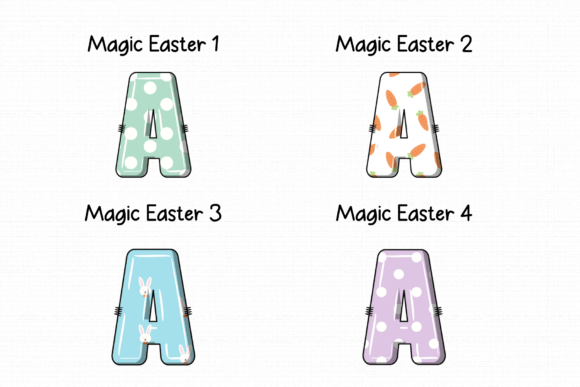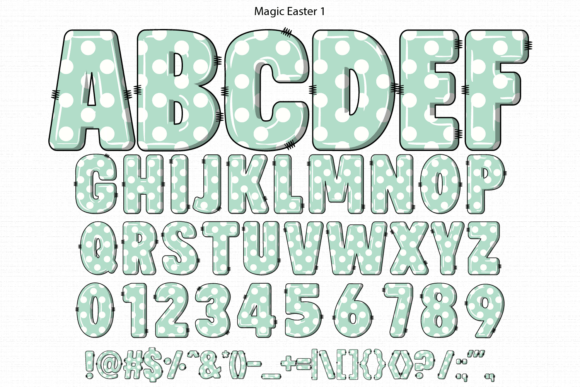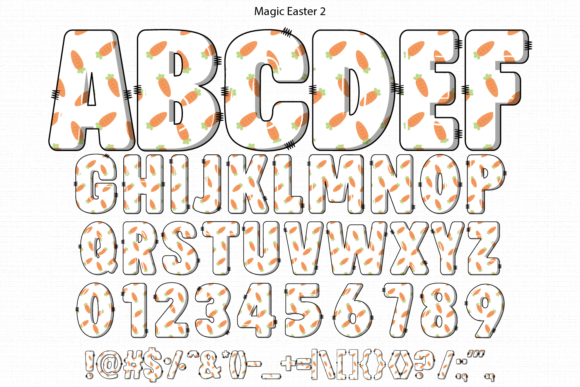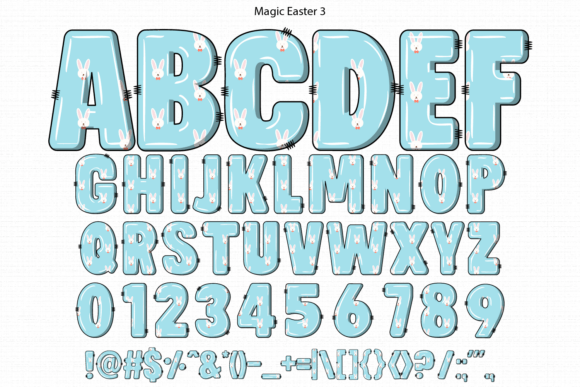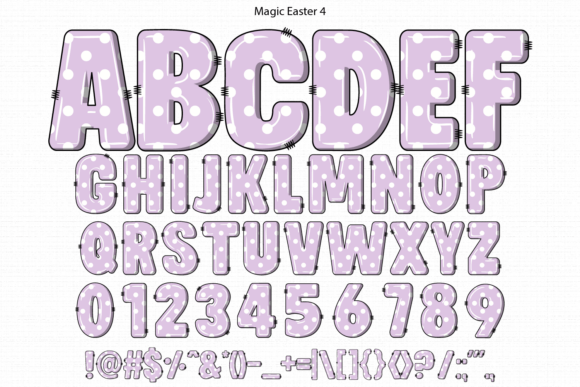
Introduction to Magic Easter Font
Do you remember that moment when you stumbled upon the perfect design element for a creative project? It’s like a spark of inspiration that sets your imagination ablaze. For designers, finding the right font can be a game-changer. That’s why we’re excited to introduce the Magic Easter Font, a vibrant and high-quality design resource that’s sure to bring a touch of whimsy to your next project.
With its transparent background and effortless style, the Magic Easter Font is the perfect addition to any design assemblage. Whether you’re crafting a blog post, logo, or advertisement, this font is sure to deliver standout results. And with its compatibility with popular design programs like PhotoShop, Illustrator, and Silhouette, you can unleash your creativity without any limitations.
Key Features of Magic Easter Font
- High-quality design resource perfect for creative projects, such as Easter-themed graphics, invitations, and social media posts.
- Transparent background option for easy customization and layering with other design elements.
- Unique, hand-drawn style that adds a touch of whimsy and personality to any creative project.
- Perfect for designers, artists, and crafters looking for a distinctive and eye-catching font to elevate their Easter-themed designs.
Honest Review: Magic Easter Font
I recently stumbled upon the Magic Easter Font, and I must say it’s a delightful addition to any design project. As a designer, I appreciate high-quality fonts that can elevate a creative project.
- Transparency: The Magic Easter Font offers a transparent background, making it easy to customize and blend with any design element.
- Unique Design: The font’s unique design makes it perfect for spring-themed projects, Easter cards, and other seasonal creatives.
- Limited Characters: The font may not be suitable for extensive text-based projects due to its limited character set.
Overall, the Magic Easter Font is a great design resource for those looking to add a touch of whimsy to their creative projects. While it has its limitations, it’s a high-quality font that’s perfect for Easter-themed designs and free download makes it an attractive option.
The Magic Easter Font is a high-quality design resource perfect for creative projects. With a transparent background, it’s easy to integrate into various design platforms.
– Use the Magic Easter Font for Easter-themed designs, such as invitations, cards, and banners.
– Experiment with different font sizes and colors to create a unique look.
– Combine the Magic Easter Font with other design elements, such as images and graphics, to create a visually appealing design.